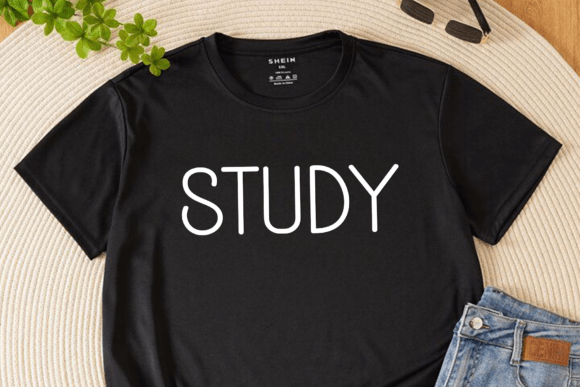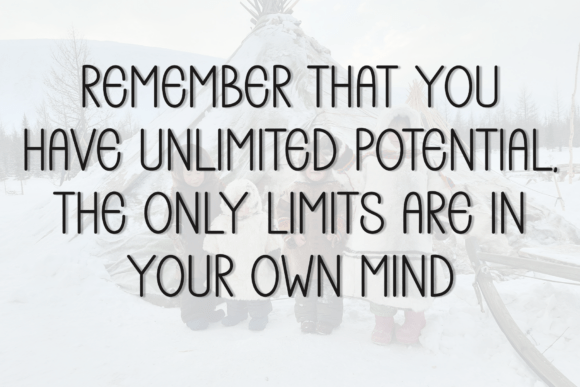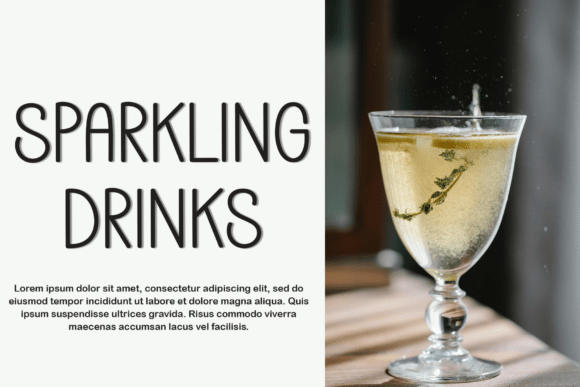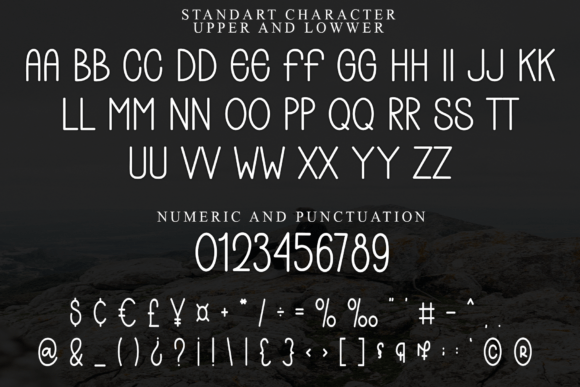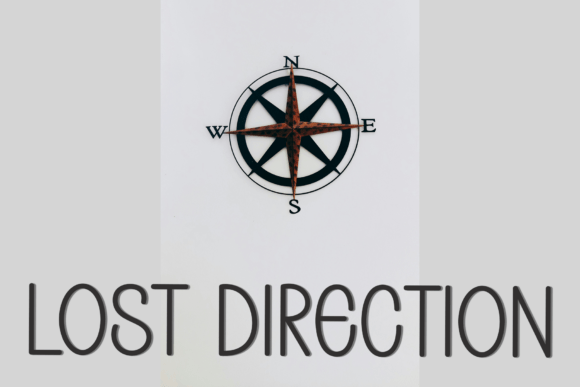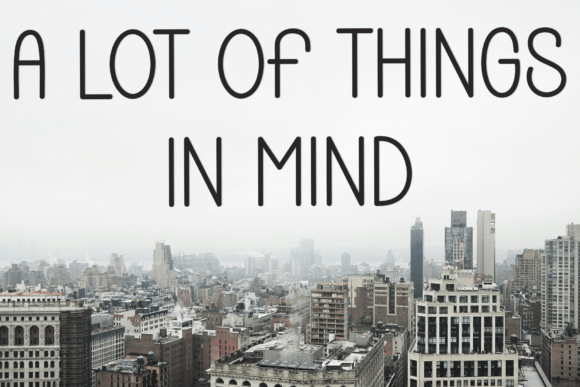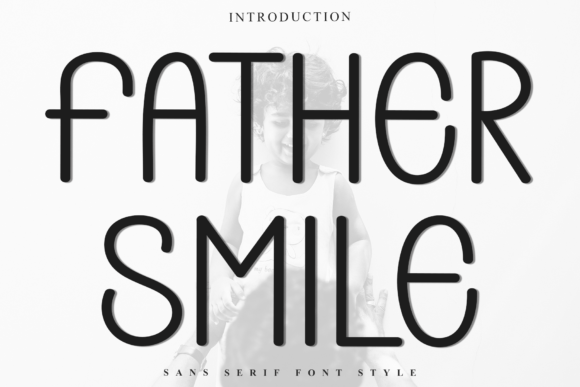
Introducing Father Smile Font: The Ultimate Holiday Typeface
The holiday season is upon us, and what better way to get into the spirit than with a festive and merry typeface? Look no further than Father Smile Font, a decorative and whimsical font that’s perfect for adding a touch of enchantment to your designs. In this article, we’ll dive into the world of Father Smile Font and explore its features, benefits, and uses.
Father Smile Font is a unique and eye-catching typeface that’s specifically designed to capture the spirit of the holiday season. With its decorative elements and whimsical flair, it’s the perfect addition to any holiday-themed project. Whether you’re creating greeting cards, gift tags, or festive posters, Father Smile Font is sure to bring a cheerful and nostalgic ambiance to your words.
Father Smile Font is a versatile typeface that’s perfect for designers and crafters alike. Whether you’re a professional designer or a DIY crafter, this font is easy to use and can add a touch of magic to your projects. With its PUA encoding, you can access all of the amazing glyphs and ligatures with ease, making it simple to create stunning and unique designs.
Key Features of Father Smile Font
- Decorative elements: Father Smile Font features decorative elements that add a touch of festivity and whimsy to your designs.
- Whimsical flair: This font has a playful and whimsical flair that’s perfect for capturing the spirit of the holiday season.
- PUA encoded: With PUA encoding, you can access all of the amazing glyphs and ligatures with ease.
- Perfect for holiday projects: Father Smile Font is specifically designed for holiday-themed projects, making it perfect for greeting cards, gift tags, and festive posters.
Uses for Father Smile Font
Father Smile Font is a versatile typeface that can be used in a variety of ways. Here are some ideas to get you started:
- Greeting cards: Add a touch of festivity to your holiday greeting cards with Father Smile Font.
- Gift tags: Create custom gift tags with Father Smile Font and add a personal touch to your gifts.
- Holiday posters: Use Father Smile Font to create eye-catching holiday posters that capture the spirit of the season.
- Social media graphics: Add a touch of festivity to your social media graphics with Father Smile Font.
Tips for Using Father Smile Font
Here are some tips for getting the most out of Father Smile Font:
- Experiment with different sizes and colors: Father Smile Font looks great in a variety of sizes and colors, so don’t be afraid to experiment and find the perfect combination for your project.
- Pair with other fonts: Father Smile Font pairs well with other fonts, so try combining it with a sans-serif font for a unique look.
- Use it sparingly: While Father Smile Font is festive and fun, it can be overwhelming if used too much. Use it sparingly to add a touch of whimsy to your designs.